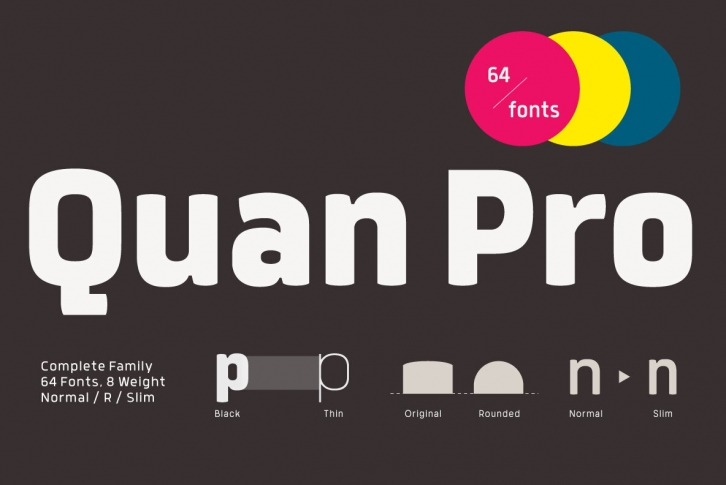
The new Quan Pro font is a refreshed version of the popular family from Typesketchbook. It includes an updated structure, corners and shapes for each letter--making it perfect in many different applications like headlines or small texts!